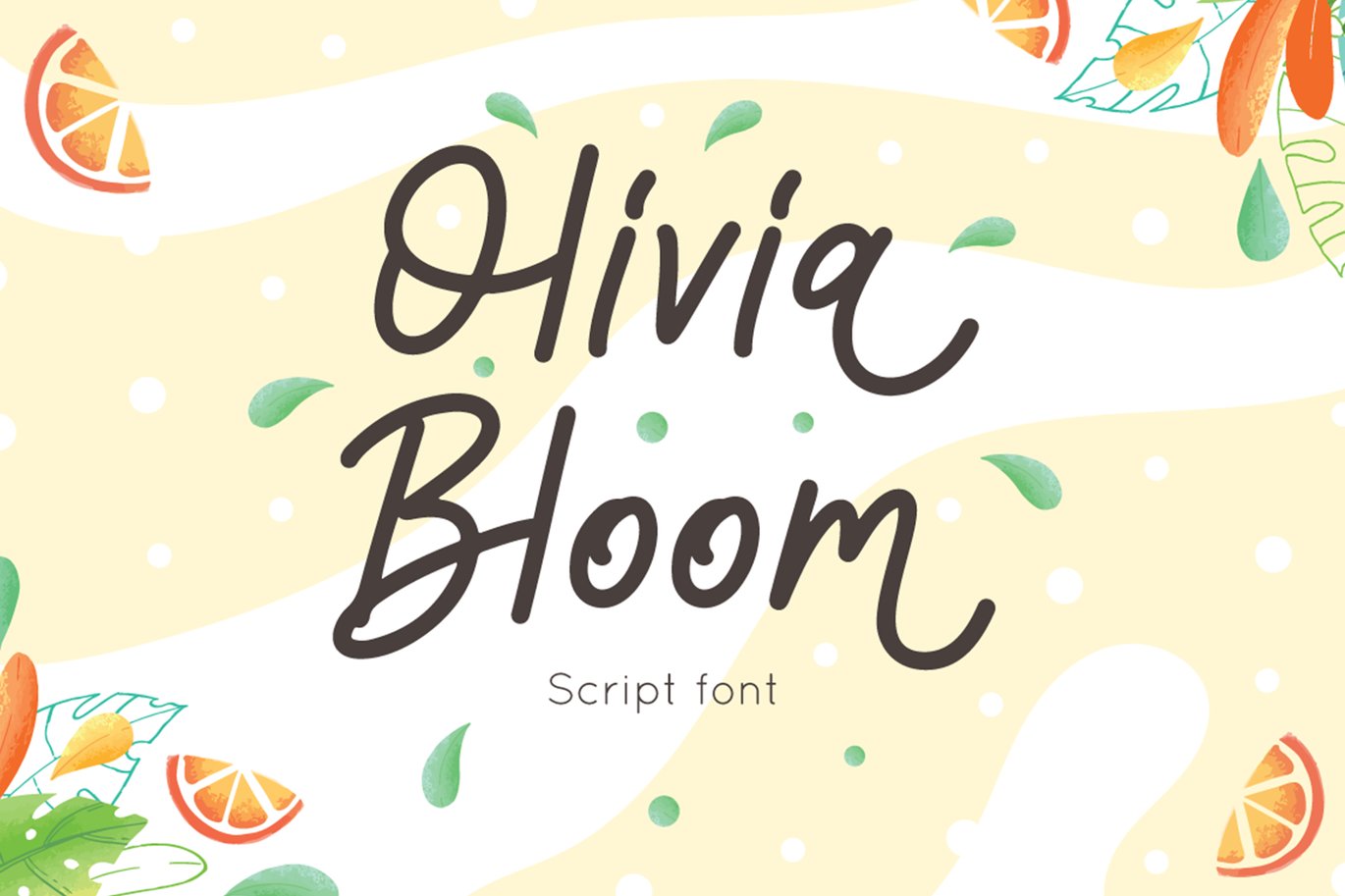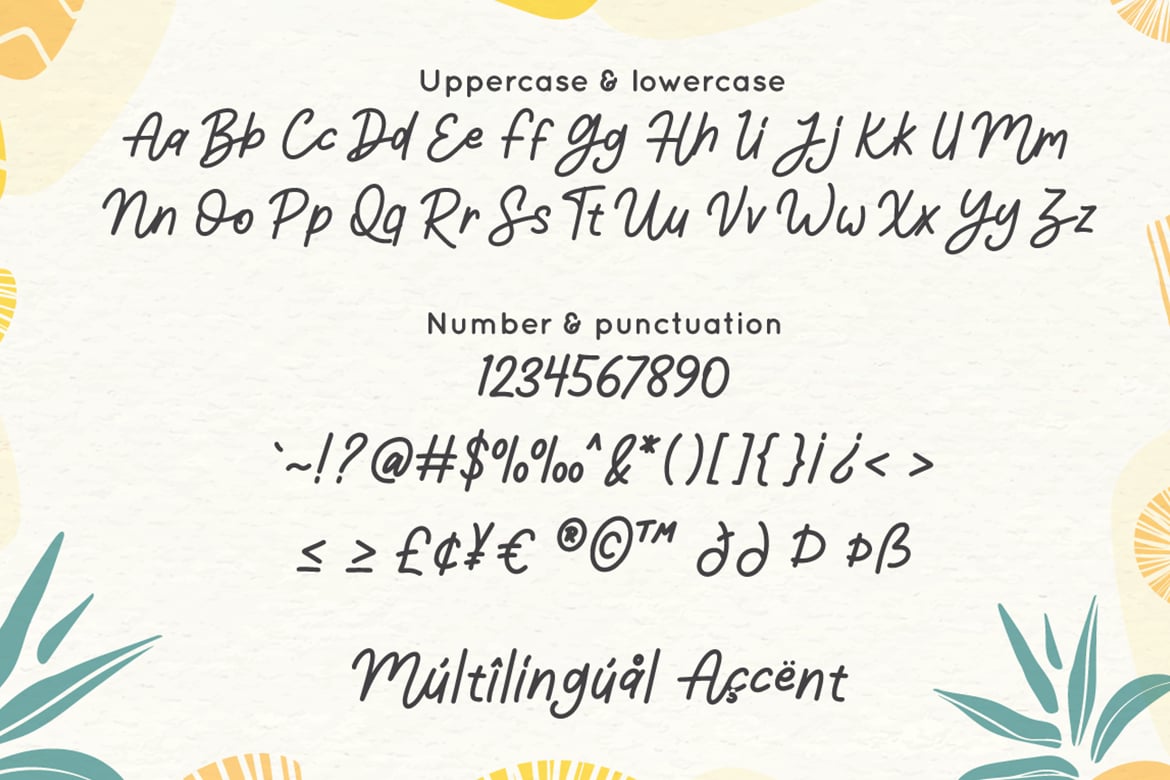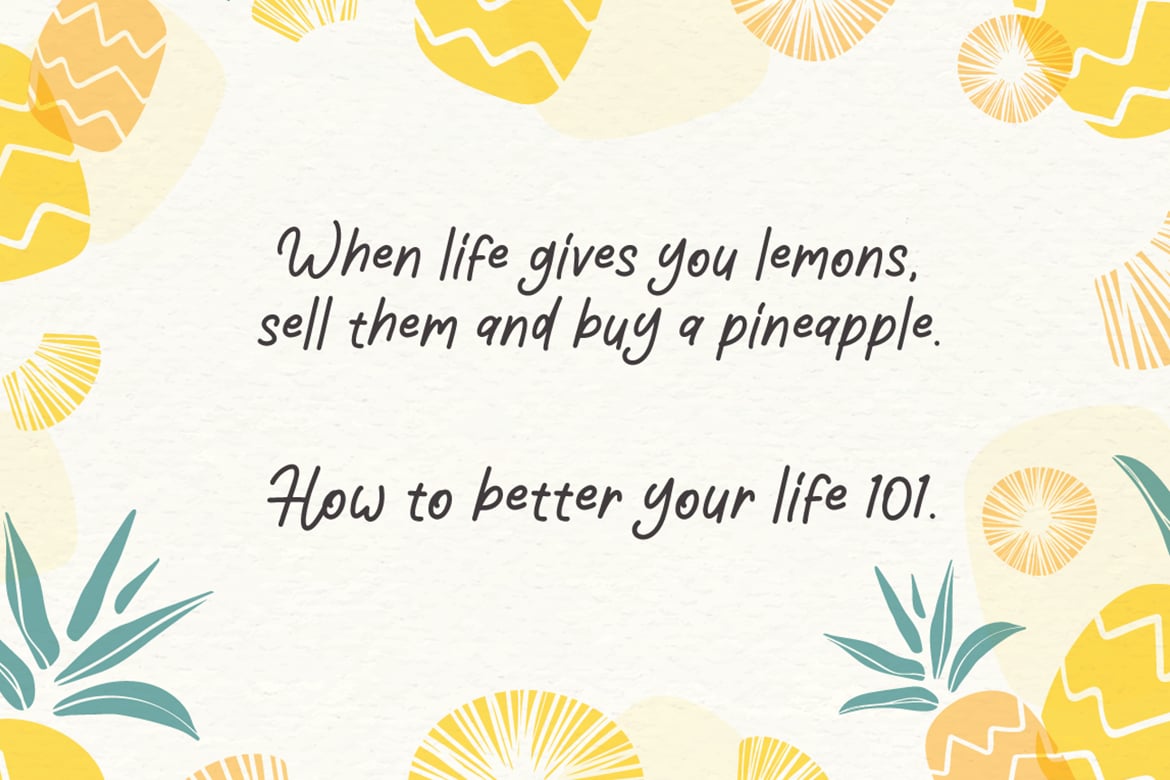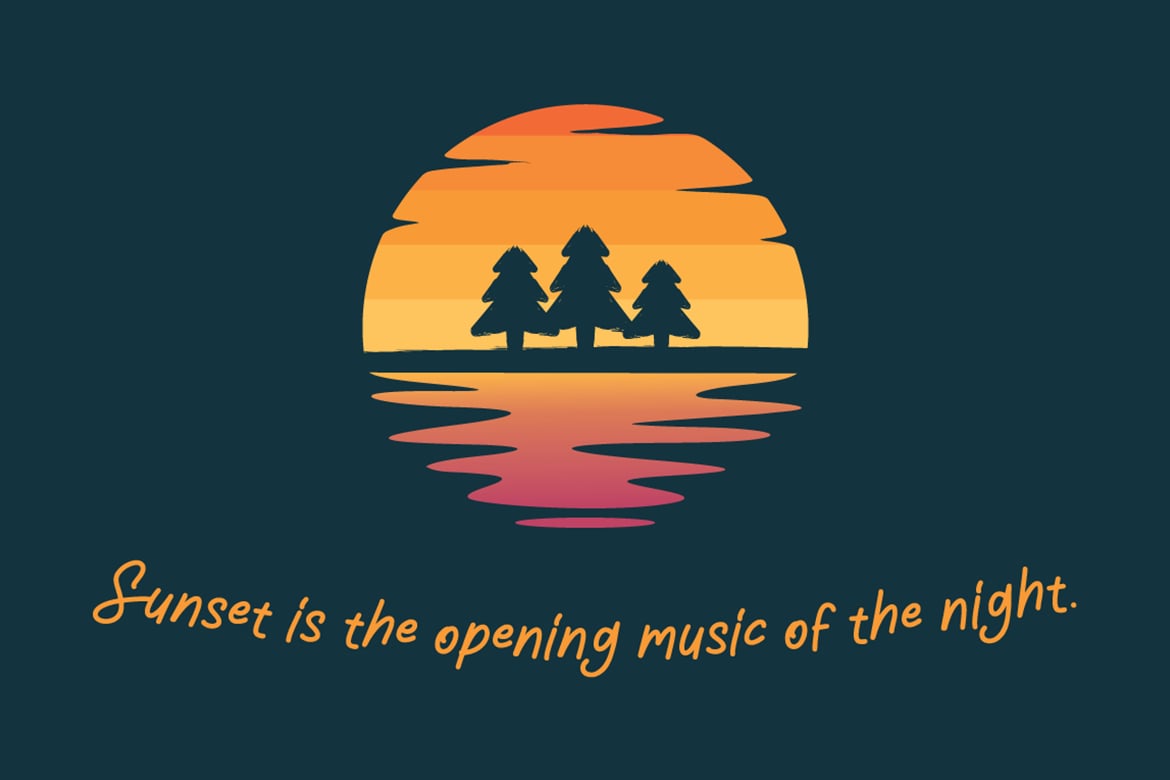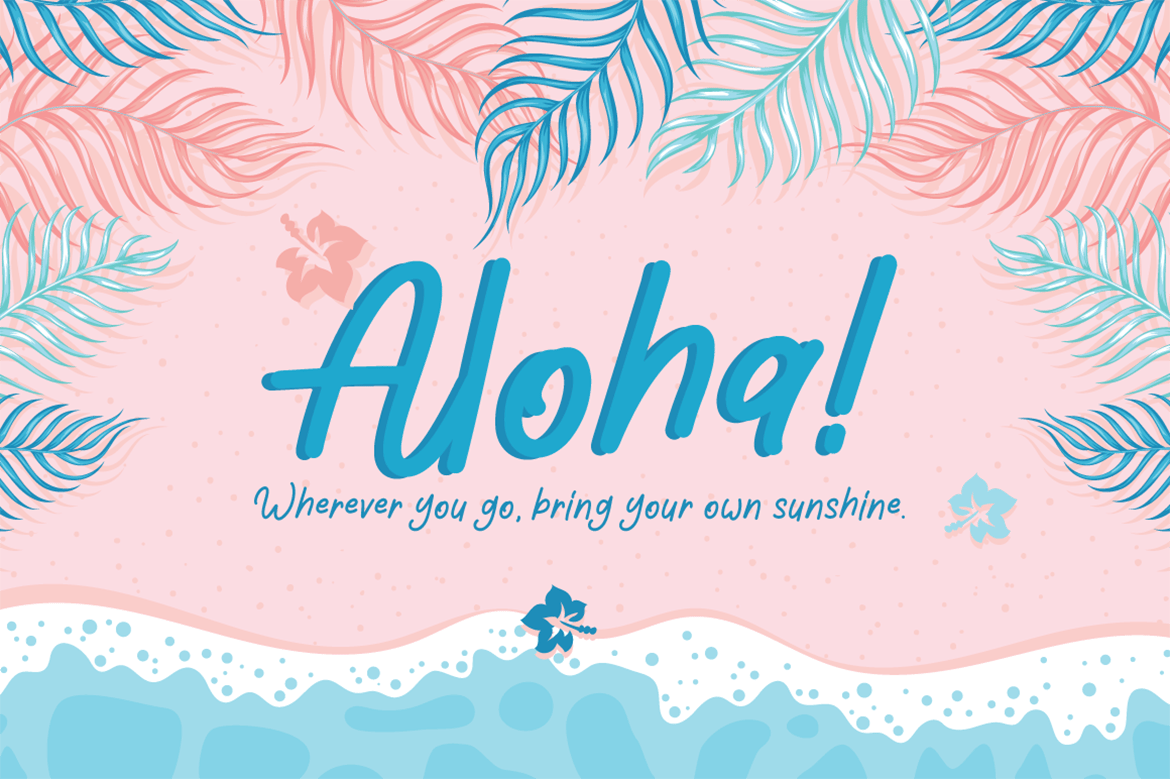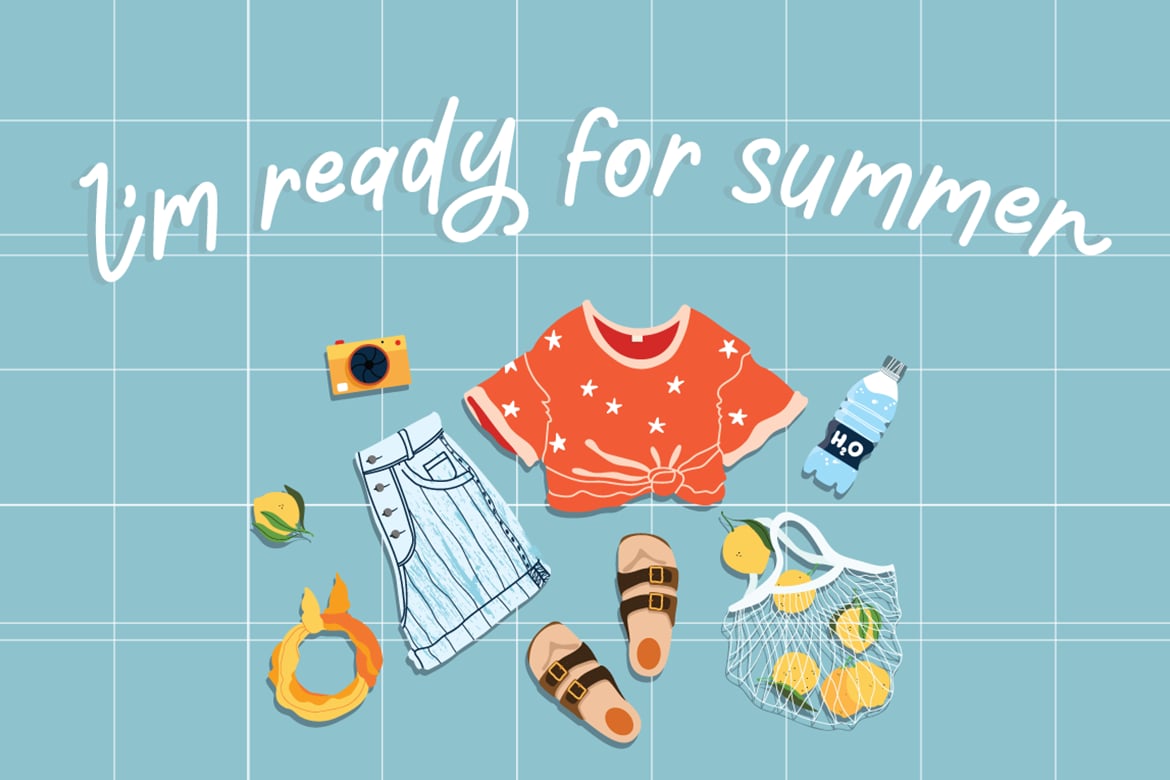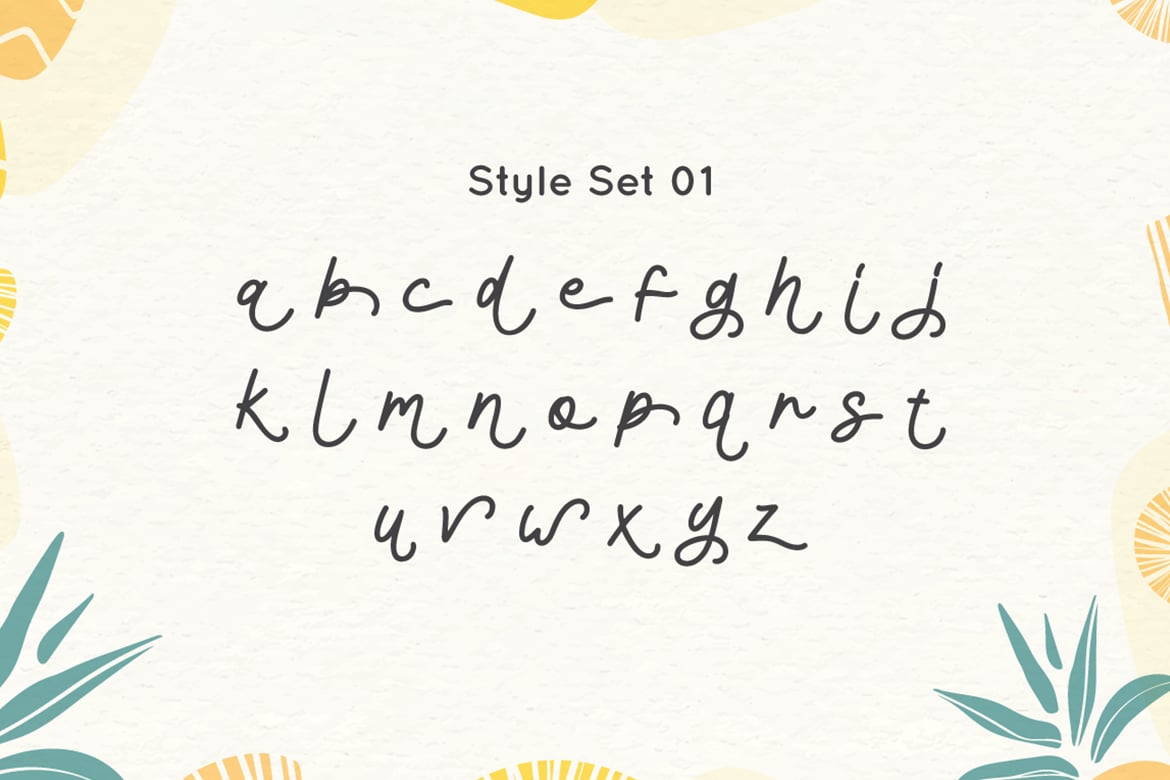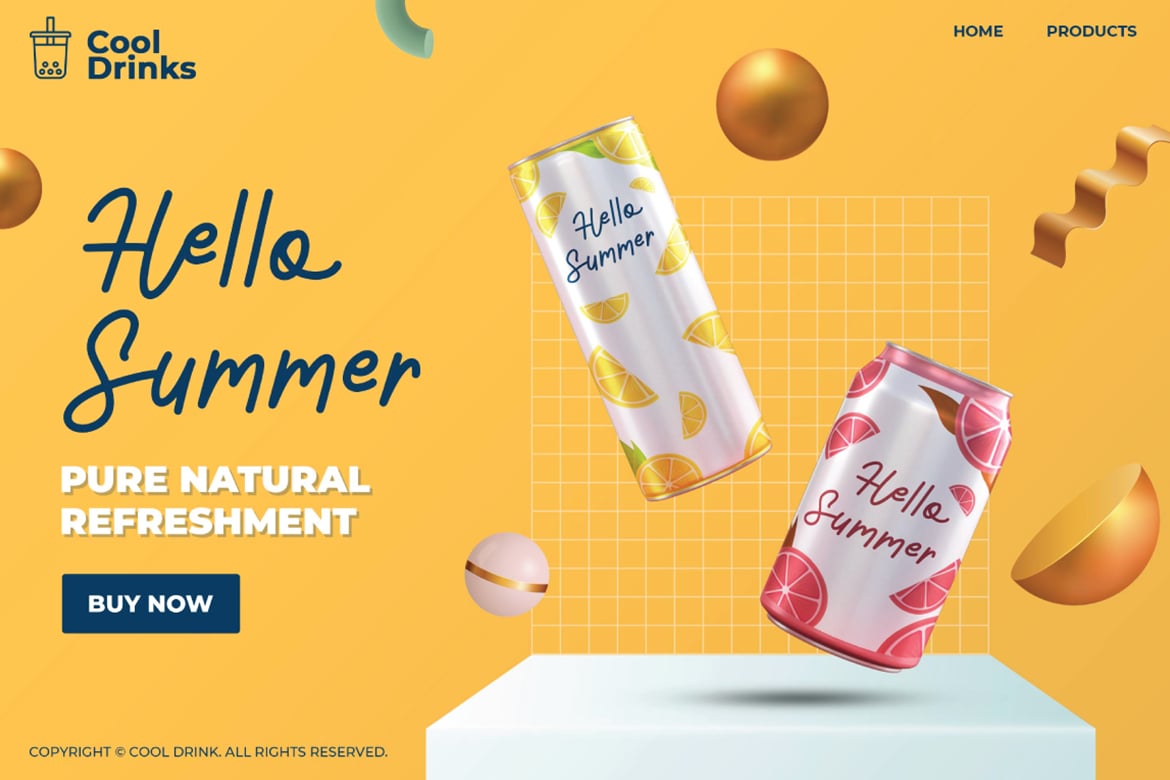
Olivia Bloom – Summer Font
Olivia Bloom is a Summer font monoline style, combine with alternates to make spectacular design
Olivia Bloom is perfect for summer event, summer party, branding, logo, invitation, quotes, apparel design, product packaging, merchandise, game titles, cute style design, Book/Cover Title and more.